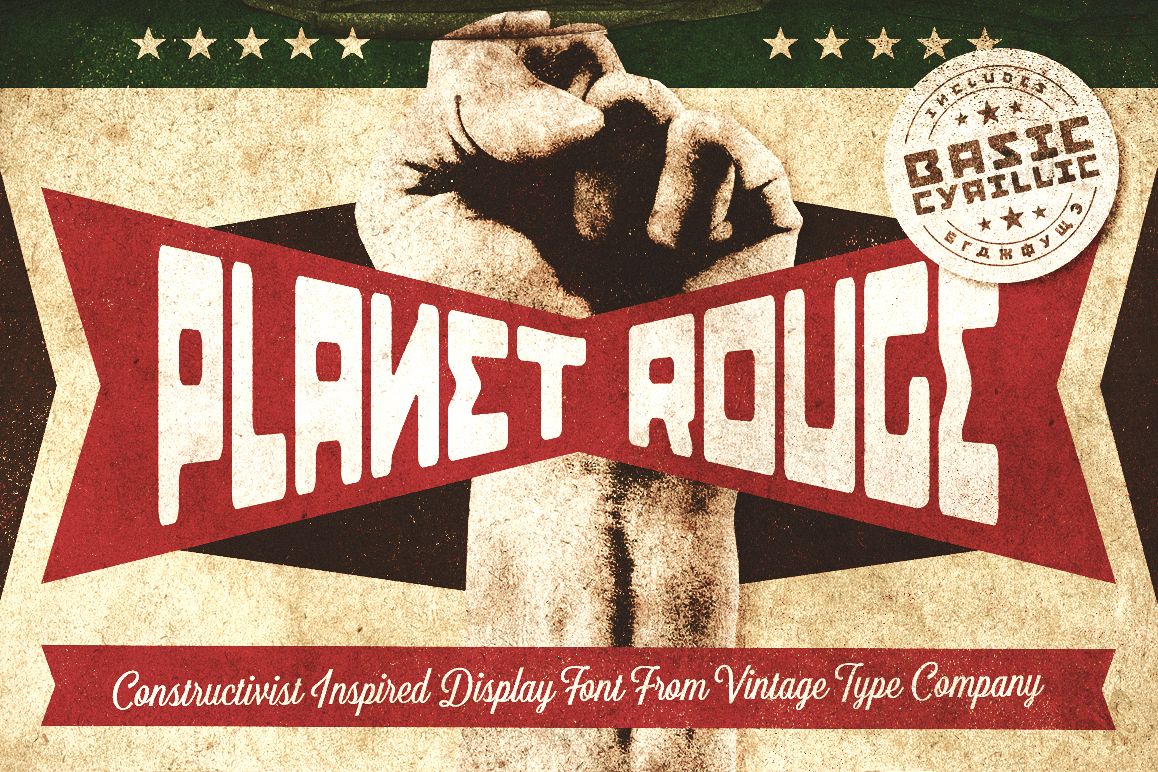
Planet Rouge Display Font
Planet Rouge is a constructivist inspired display font that comes with a rough inked version, as well as multilingual support including basic cyrillic!
This font is tough, with its strict, geometric aesthetic, and unique characters, Planet Rouge is guaranteed to get your message heard, or pack your logo with a punch.
The font comes with full upper & lower case, including a couple of basic ligatures, and also comes equipped with multilingual support for the following languages: